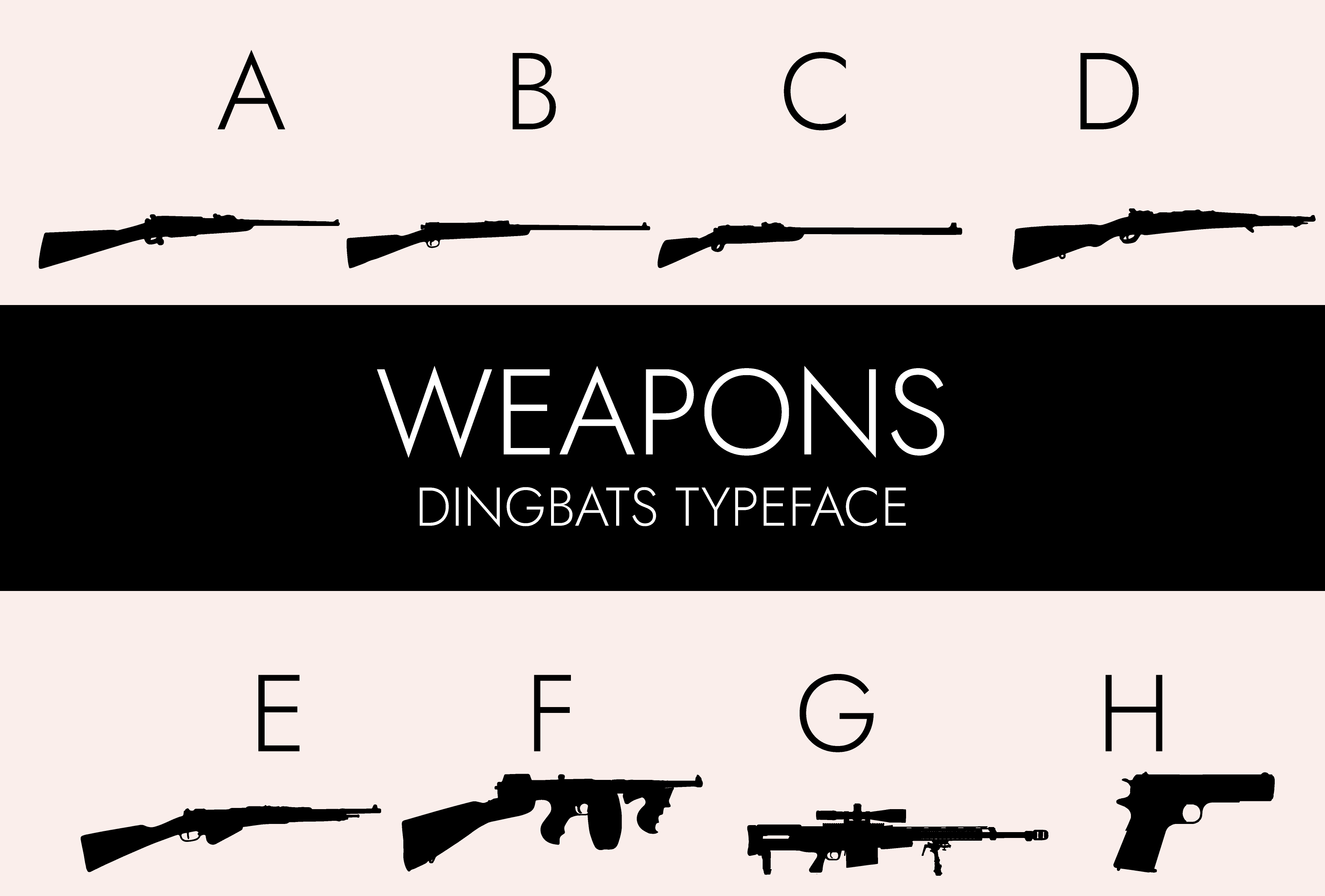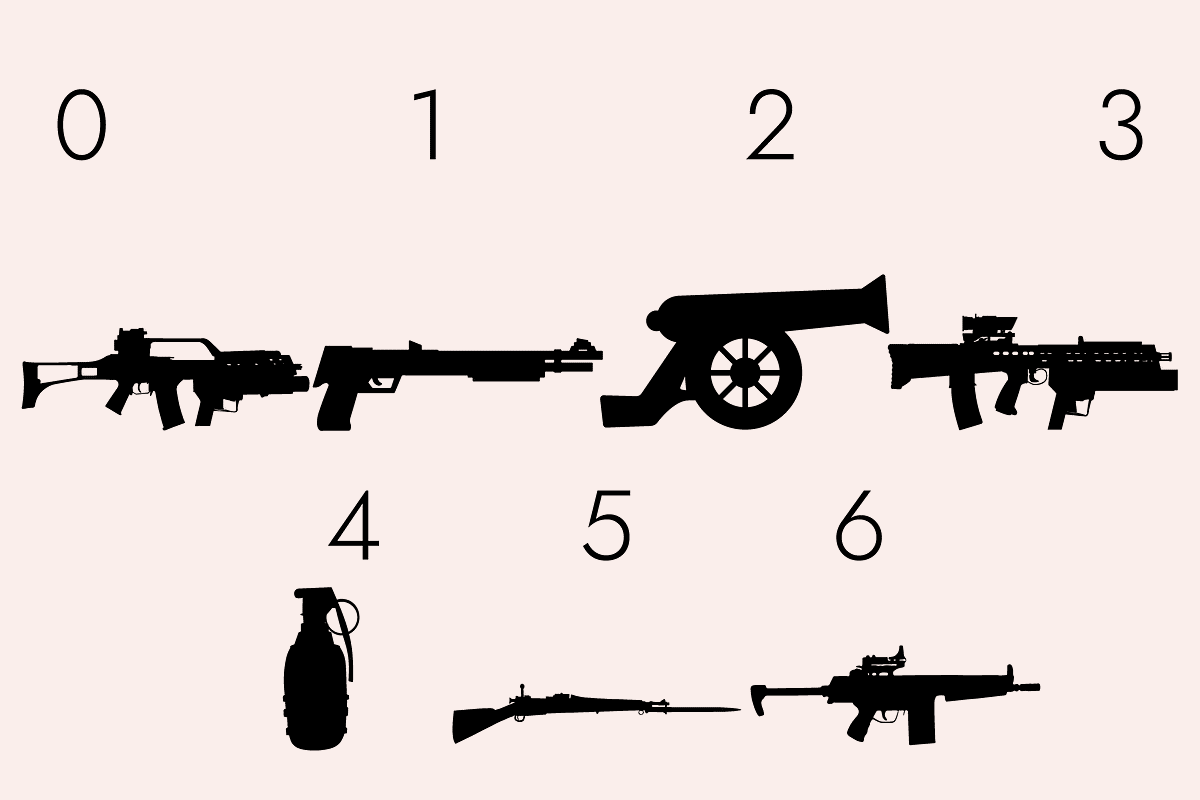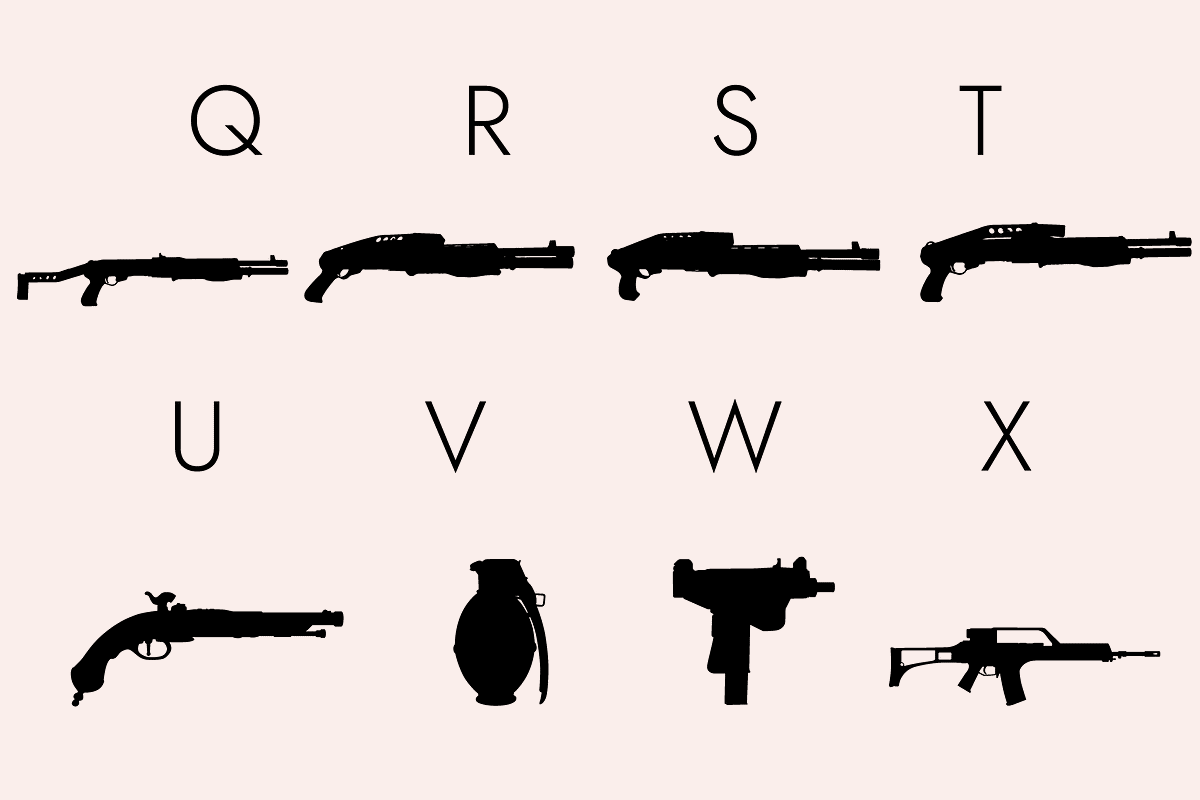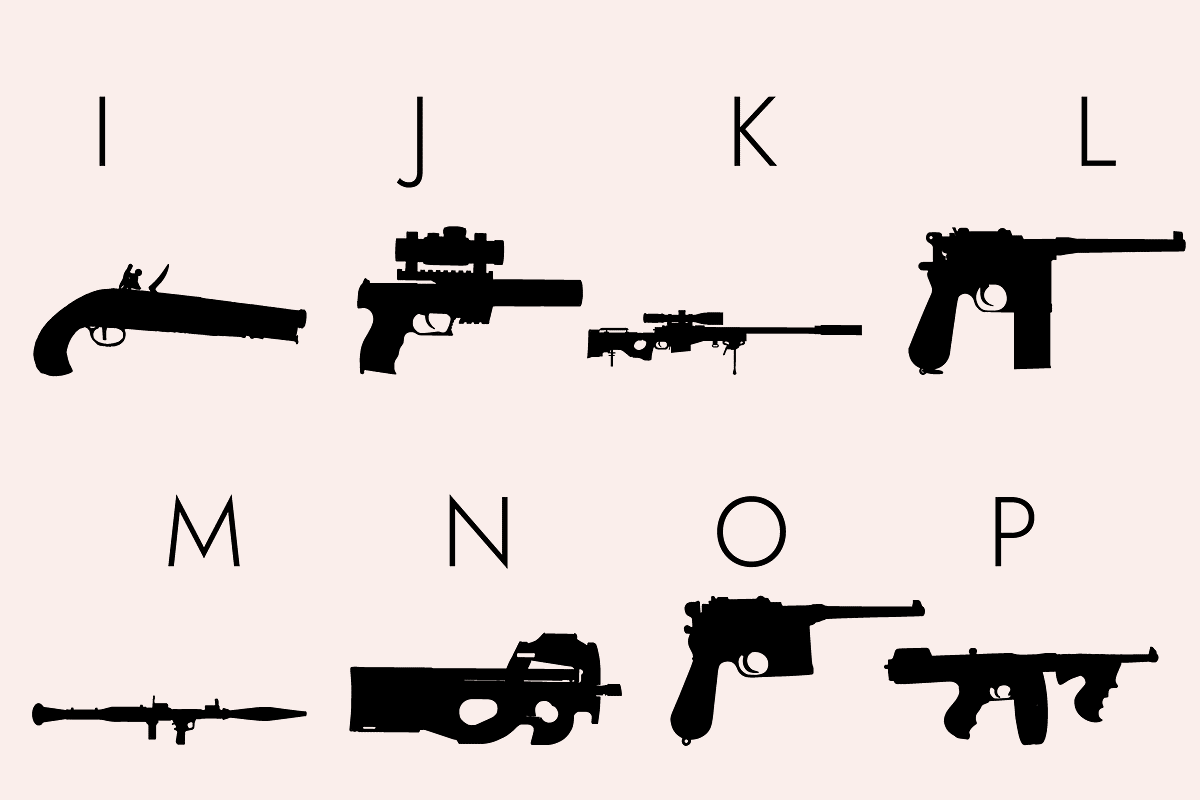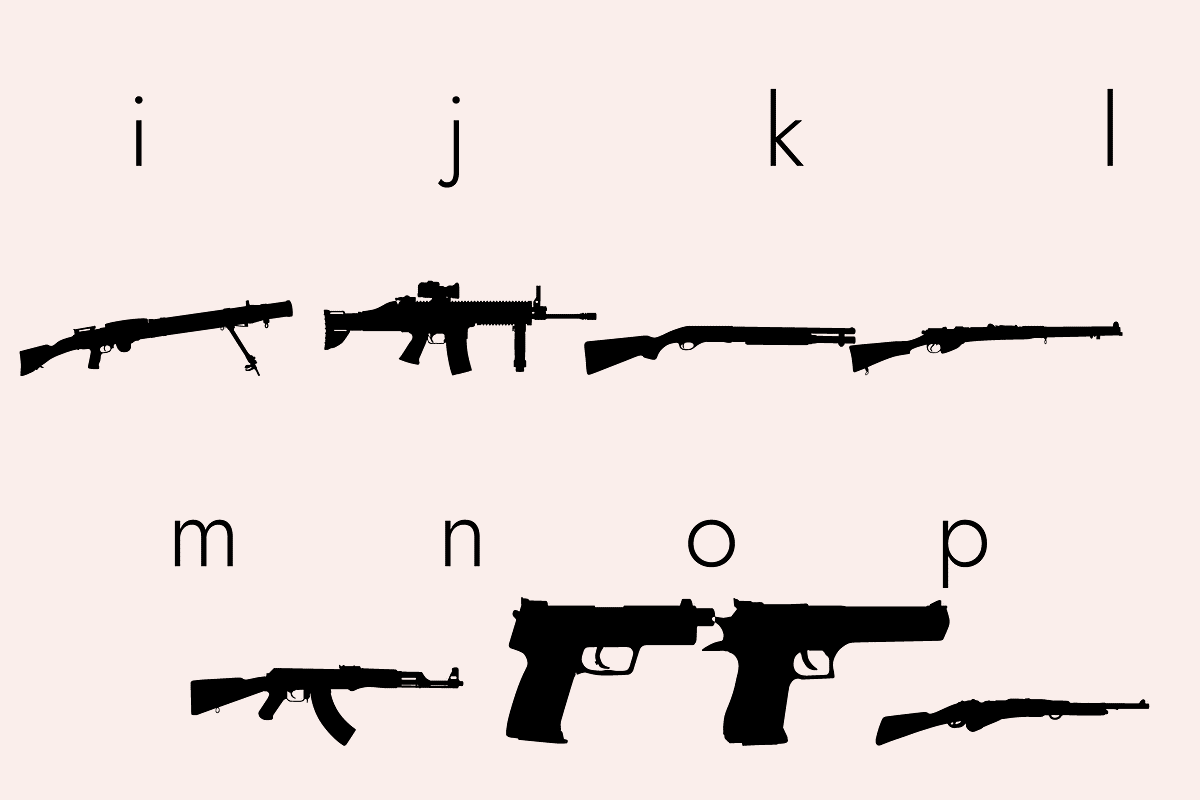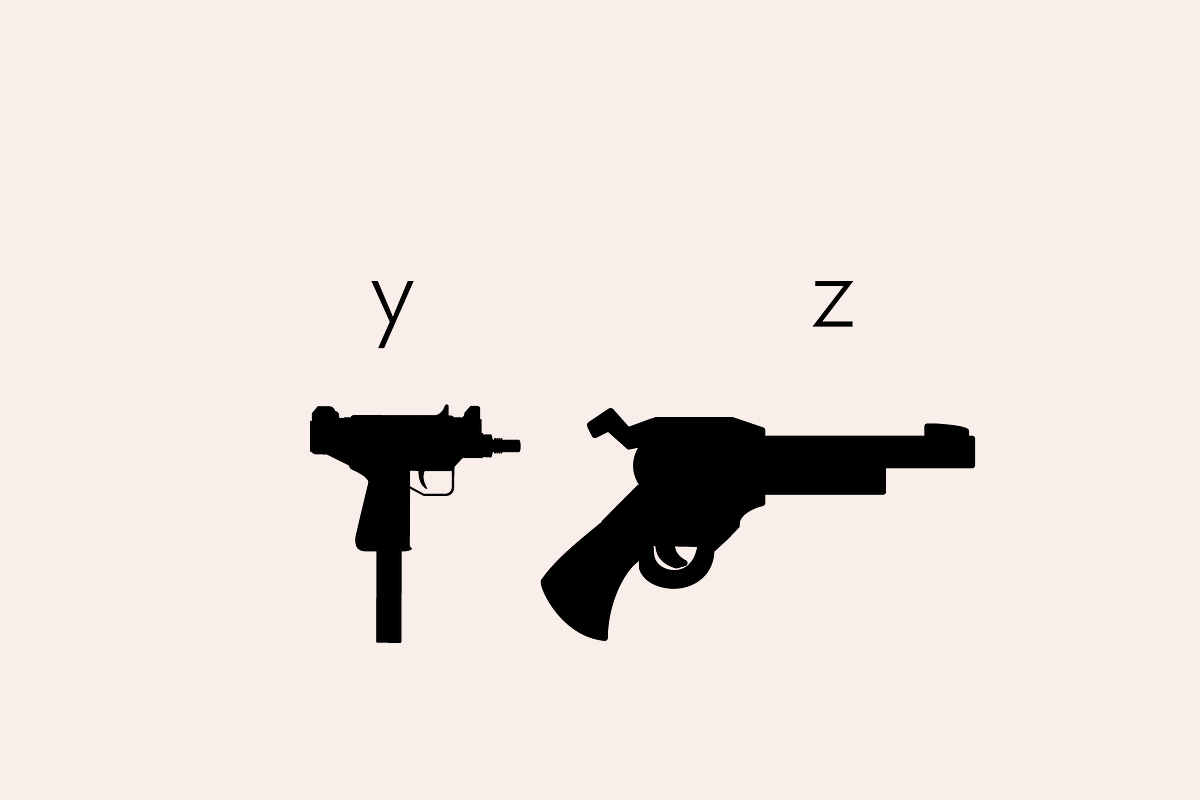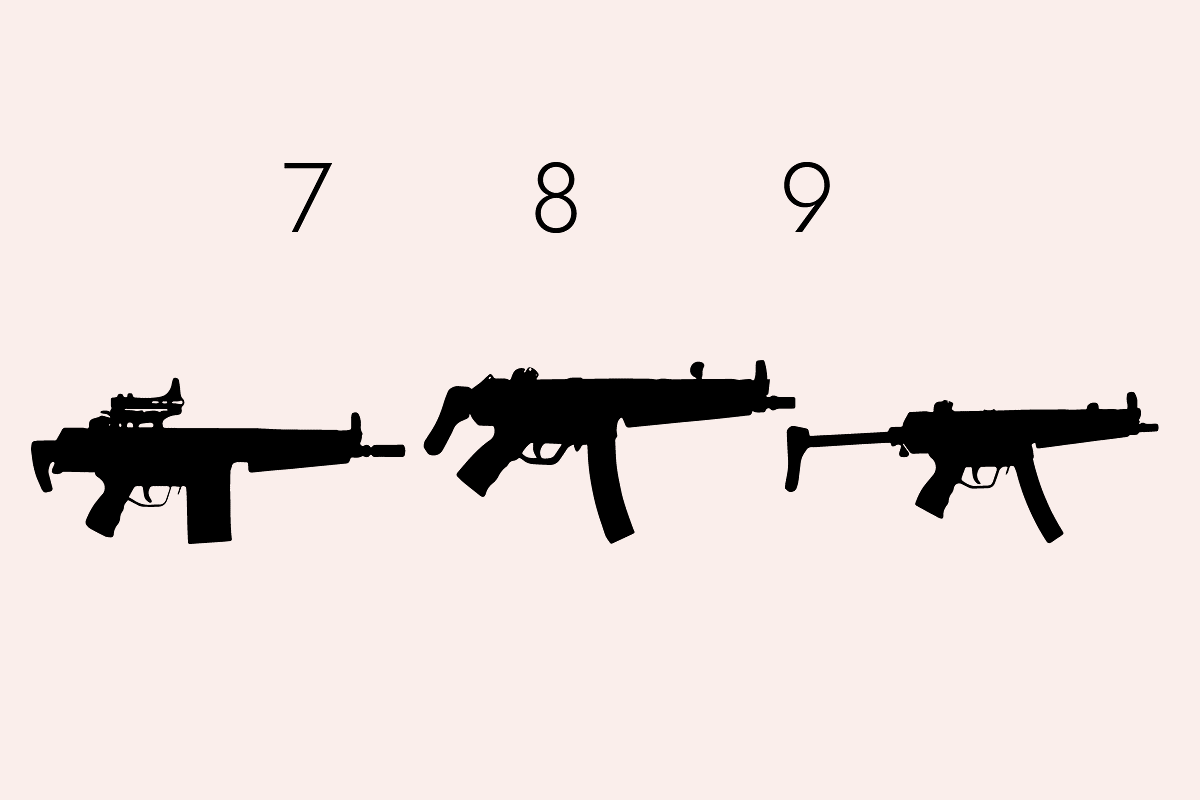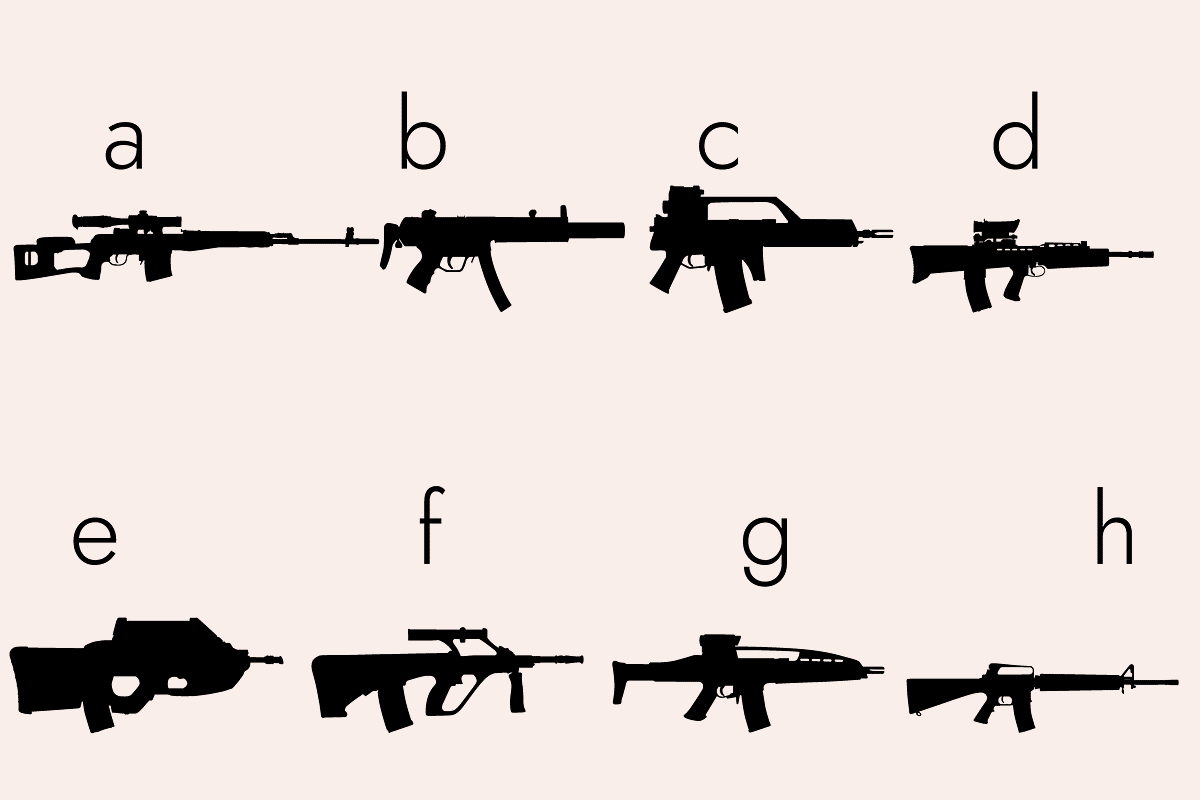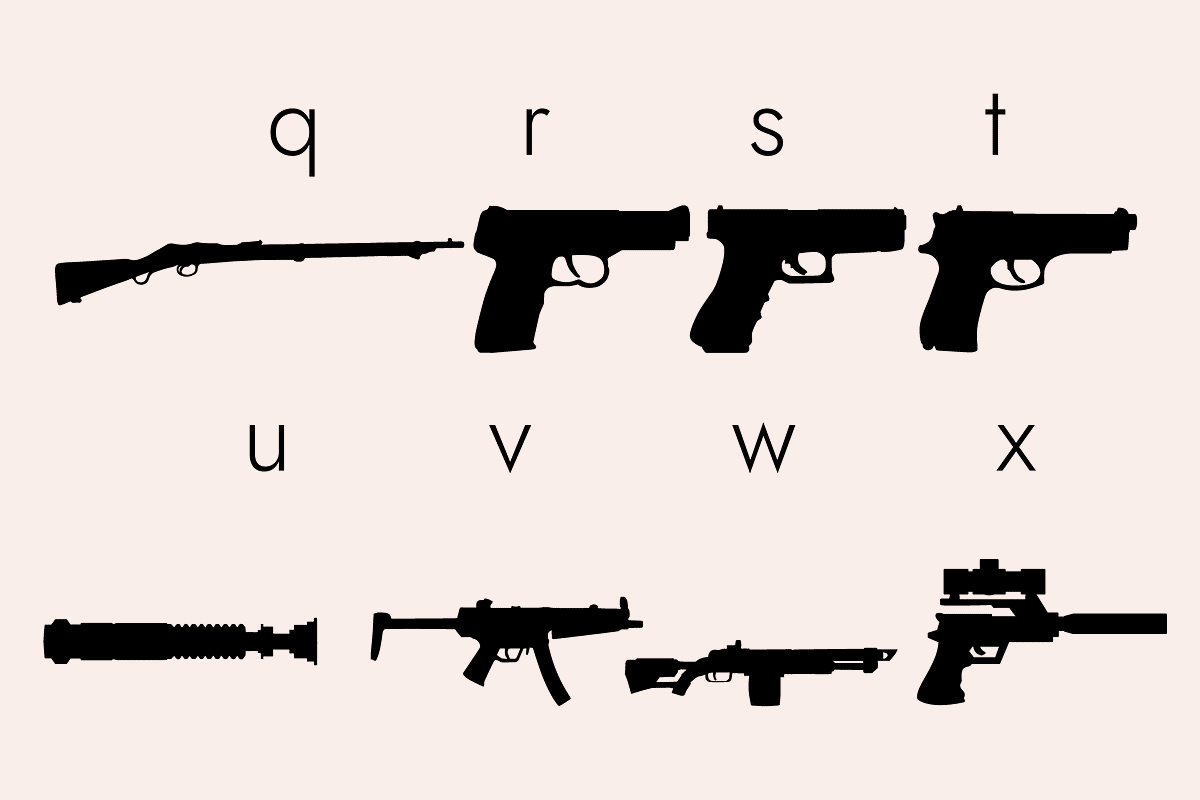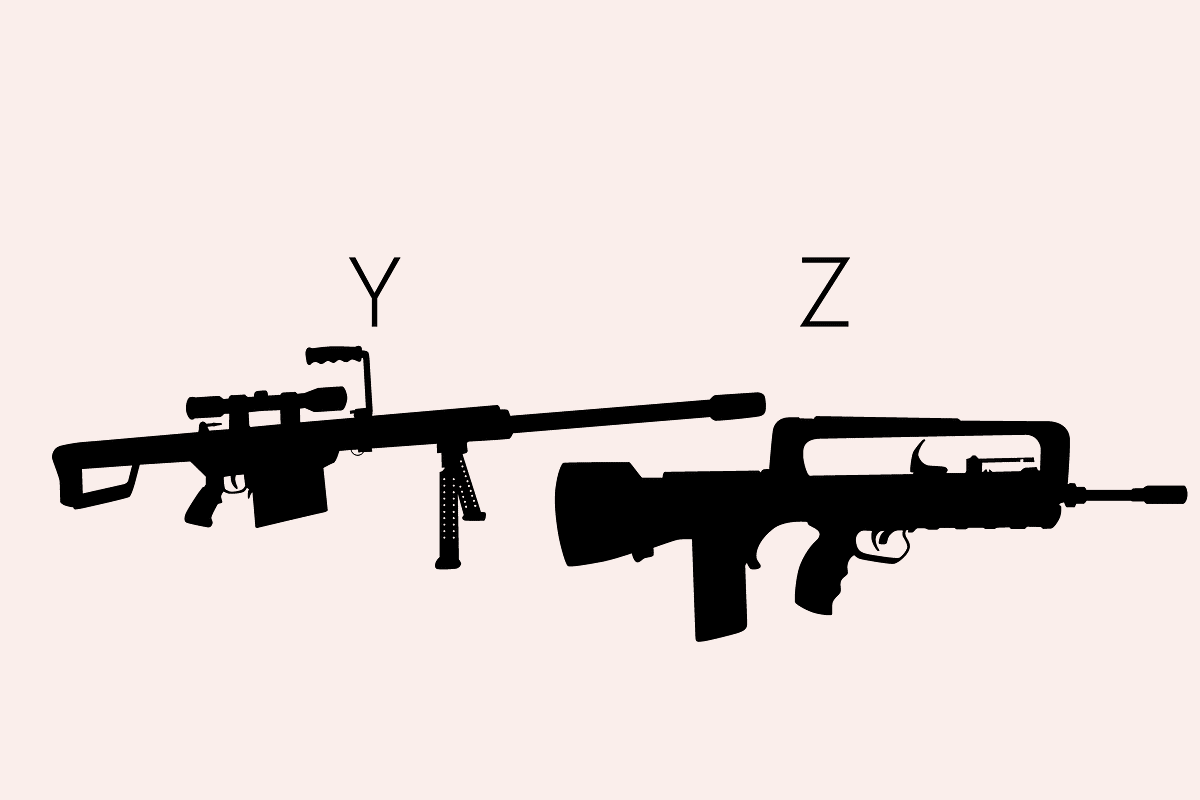
Weapons Silhouettes Dingbats Font
Weapons Silhouettes is a unique and original dingbats font. It will be incredibly useful for certain topics such as police related topics, gun control education and so on.